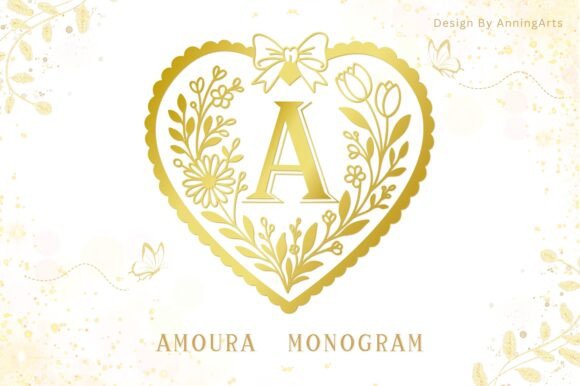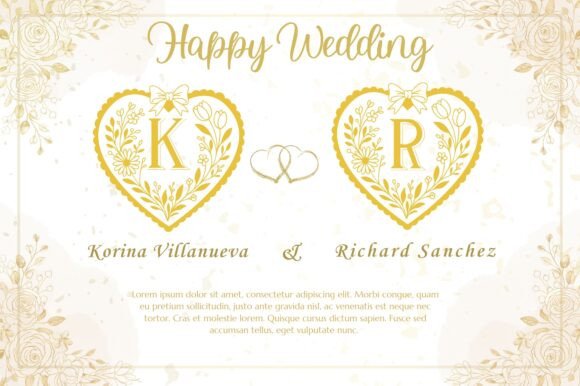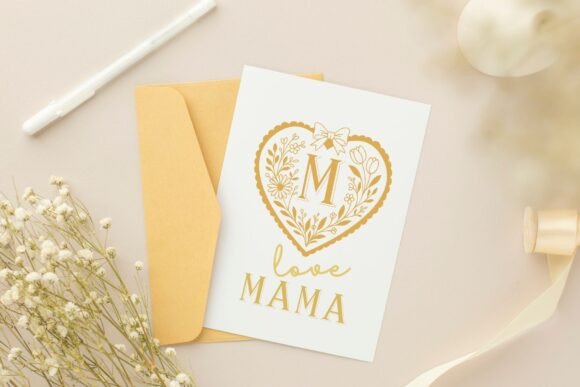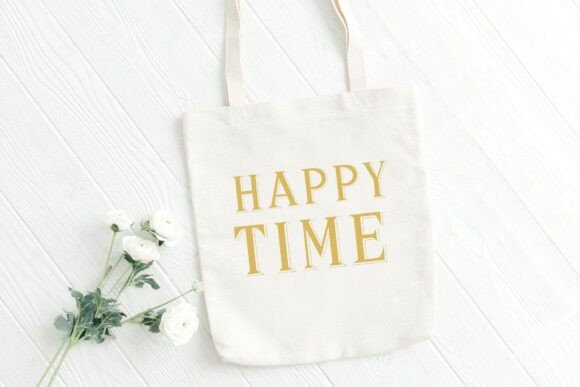
Amoura Font: Floral Heart Monogram – Elegant Wedding Font
About the Amoura Font
Step up your design game with Amoura Font, a font that exudes confidence and style. Amoura is an elegant floral monogram font featuring a classic serif letterform enclosed in a heart-shaped botanical frame. Its refined lines and delicate floral arrangement make this font perfect for wedding stationery, personalized gifts, luxury packaging, invitations, logos, stickers, and sublimation projects.
Amoura Font Usage Examples
Amoura Font Example